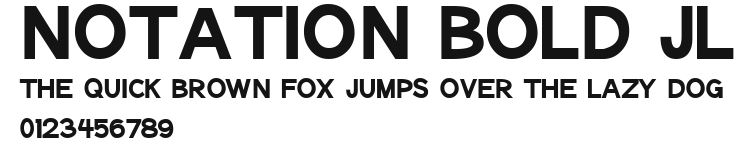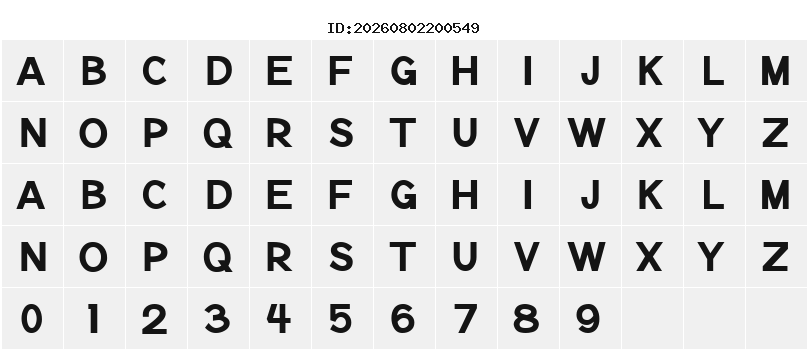
• Font Name: Notation Bold JL
• Font ID: Notation Bold JL
• Full Font Name: Notation Bold JL
• Designer: Jeffrey N. Levine
• Manufacturer: Jeff's Fonts & Dingbats
• Description: "Notation Bold JL"
About Notation Bold JL.ttf
Notation Bold JL.ttf is a modern, elegant sans-serif font designed for ultimate readability and visual harmony. Perfect for branding, headlines, web design, and print materials.